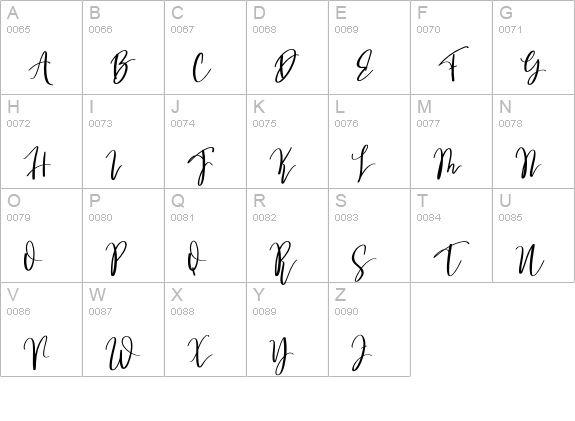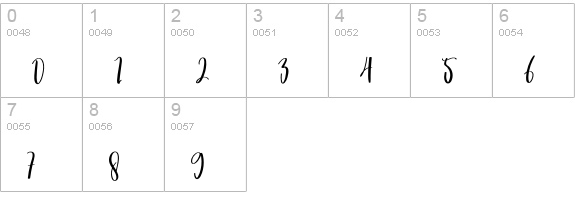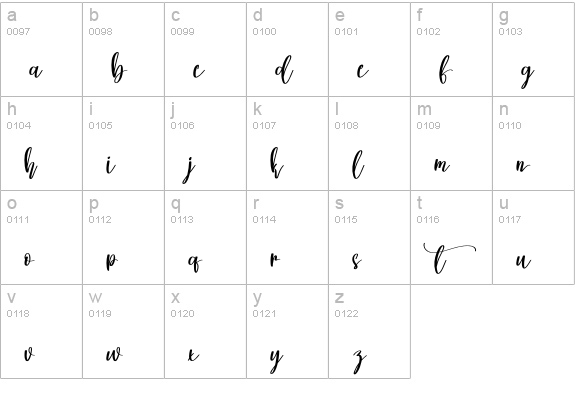
Melonade Font Details
Melonade is a free for personal use font in the Script > Handwritten category, designed by scratchones. It has been downloaded 2 times and is available for Windows, Mac and Linux.
Introducing Melonade font, a delightful and whimsical typeface that is sure to add a touch of charm to any design project. With its playful curves and unique style, Melonade is perfect for a variety of creative applications, from branding to social media graphics to greeting cards.